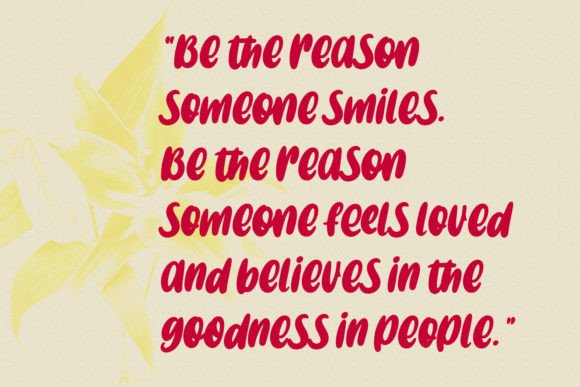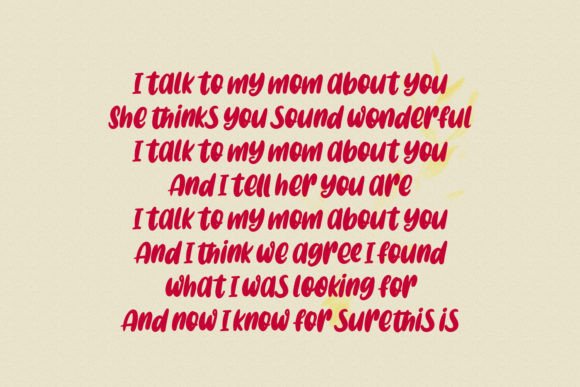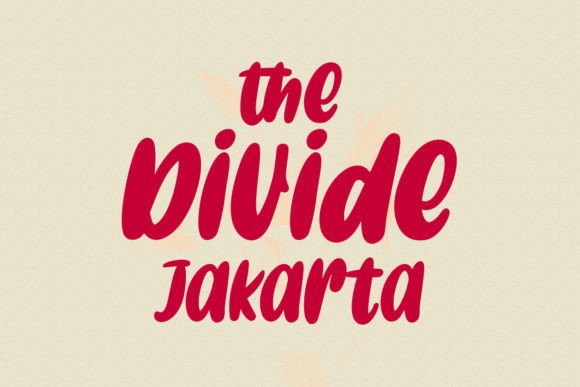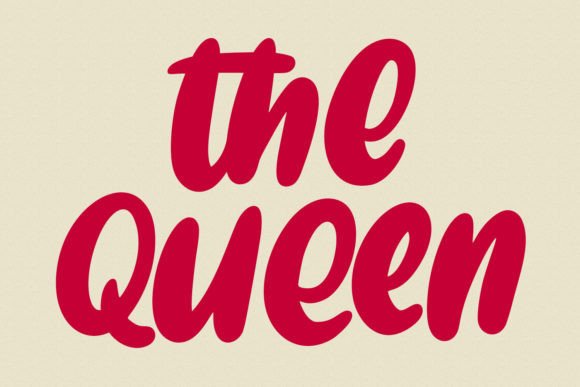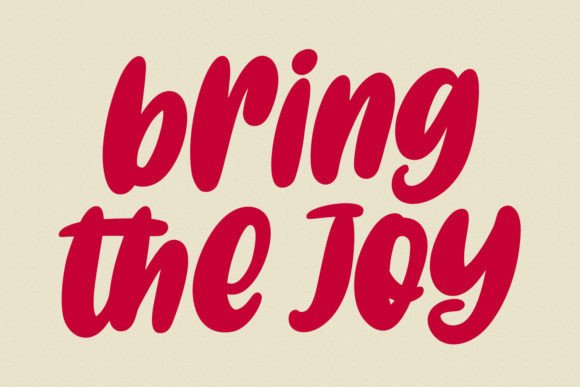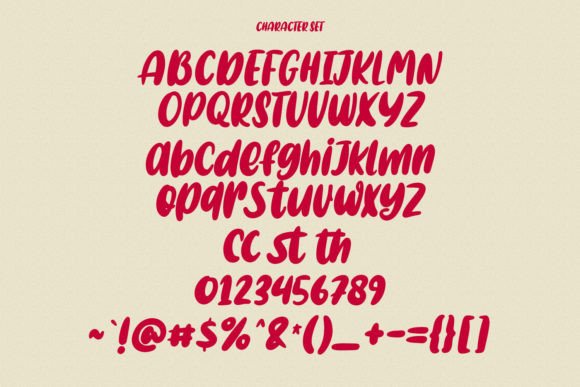
The Debright Font: A Game-Changer for Your Designs
I’ll never forget the time I was working on a project for a client who wanted a bold, eye-catching font to make their brand stand out. I scoured the internet for hours, trying out font after font, but nothing seemed quite right. That was until I stumbled upon the Debright font. This fat handwritten display font has been a game-changer for my designs, and I’m excited to share it with you! 💡
An Honest Review of Debright
- ✨ **Unique and quirky personality**: Debright has a one-of-a-kind charm that adds a touch of personality to any design.
- ✅ **Highly legible**: Despite its chunky appearance, Debright is surprisingly easy to read, even in smaller sizes.
- 💥 **Attention-grabbing**: This font is perfect for headlines, titles, and any other text that needs to make a statement.
While Debright is an amazing font, it’s not perfect. Here are a few things to keep in mind:
- 🤔 **Limited use cases**: Debright is best used for display purposes, such as headlines and titles. It may not be the best choice for body text or smaller sizes.
- ⚠️ **May not be suitable for formal designs**: Debright’s playful personality may not be suitable for more formal or professional designs.
The Story Behind Debright
Debright was designed by a team of creatives who wanted to create a font that would add a touch of personality to any design. Inspired by the playful, handwritten fonts of the 1970s, Debright is a modern take on a classic style. The font’s chunky appearance and quirky personality make it perfect for designers who want to add a bit of whimsy to their work.
Q: What is Debright font?
A: Debright is a fat handwritten display font designed to add a touch of personality to any design.
Q: What is Debright best used for?
A: Debright is best used for display purposes, such as headlines, titles, and any other text that needs to make a statement.
Q: Is Debright easy to read?
A: Yes, despite its chunky appearance, Debright is surprisingly easy to read, even in smaller sizes.